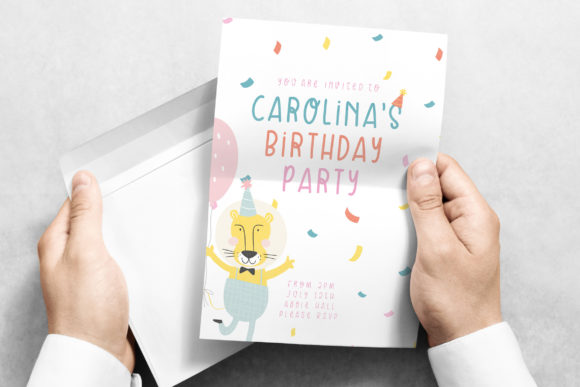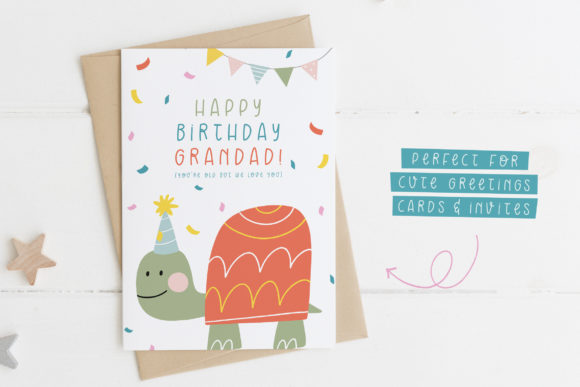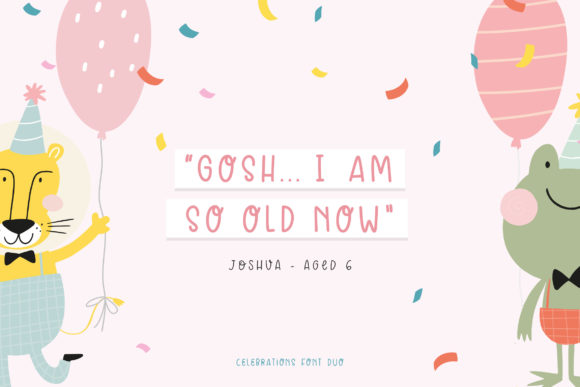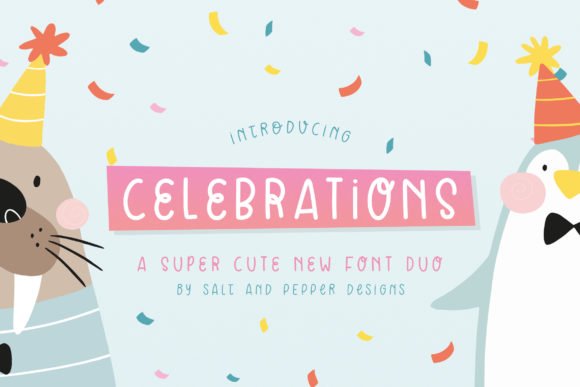
Introduction to Celebrations Font
Celebrations is a fun and playful handwritten font.
With nicely rounded characters and a friendly style, this typeface is a great choice for children’s magazines, apparel designs, cute watermarks, and other lovely projects .
Key Features of Celebrations Font
Why Choose Celebrations Font?